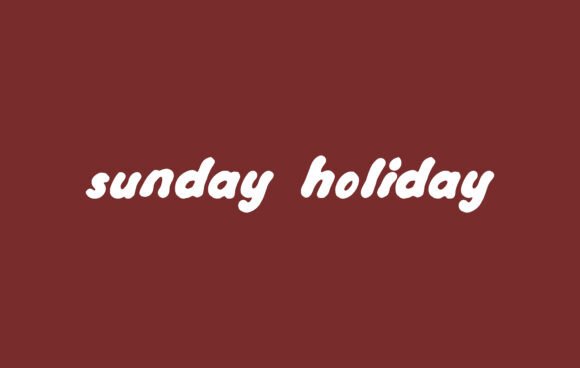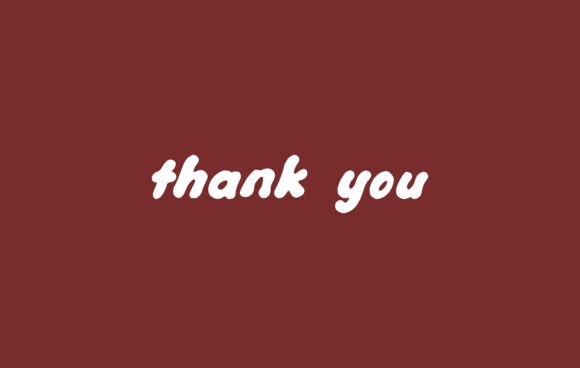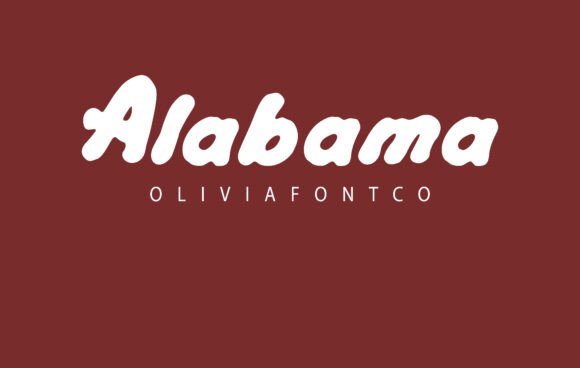
The Alabama Font: A Romantic Touch for Your Creative Projects
Have you ever been in the middle of a design project, and suddenly, you’re stuck on finding the perfect font? I recall a recent experience where I was working on a wedding invitation design, and my client requested a font that was both elegant and playful. After hours of searching, I stumbled upon the Alabama font, and it instantly became my go-to choice. In this article, I’ll share my love for this authentic handwritten font and provide you with a comprehensive guide on how to make the most of it.
An Honest Review of Alabama Font
The Alabama font has quickly become a favorite in my design toolkit, and here’s why:
- ✨ Romantic and elegant: The Alabama font exudes a sense of sophistication and charm, making it perfect for designs that require a touch of whimsy.
- ✅ Legible and versatile: This font is not only beautiful but also highly legible, making it suitable for both title and body text.
- ✅ Wide range of applications: From magazine headlines to social media graphics, wedding invitations, and branding materials, the Alabama font is an excellent choice for various design projects.
While the Alabama font is exceptional, it’s not without its quirks:
- ⚠️ Limited availability of stylistic alternates: Although the font has some OpenType features, it could benefit from more stylistic alternates to further enhance its versatility.
- 🤔 May require adjustments for longer texts: As with any handwritten font, it’s essential to make adjustments to the text flow and spacing to ensure optimal readability.
The Story Behind Alabama Font
The Alabama font was designed with the intention of creating a beautiful, handwritten font that captures the essence of romance and elegance. While the designer’s story might be shrouded in mystery, their creation has undoubtedly left a mark on the design community.
| What makes the Alabama font unique? | The Alabama font boasts a romantic and elegant feel, making it perfect for designs that require a touch of whimsy. |
| Is the Alabama font suitable for body text? | Yes, the Alabama font is legible and can be used for both title and body text, making it a versatile choice for designers. |
In conclusion, the Alabama font is a beautiful, handwritten font that can elevate your designs to new heights. With its romantic touch and versatility, it’s an excellent choice for a wide range of projects. By understanding its features, limitations, and applications, you’ll be well on your way to creating stunning designs that capture the essence of elegance and whimsy.